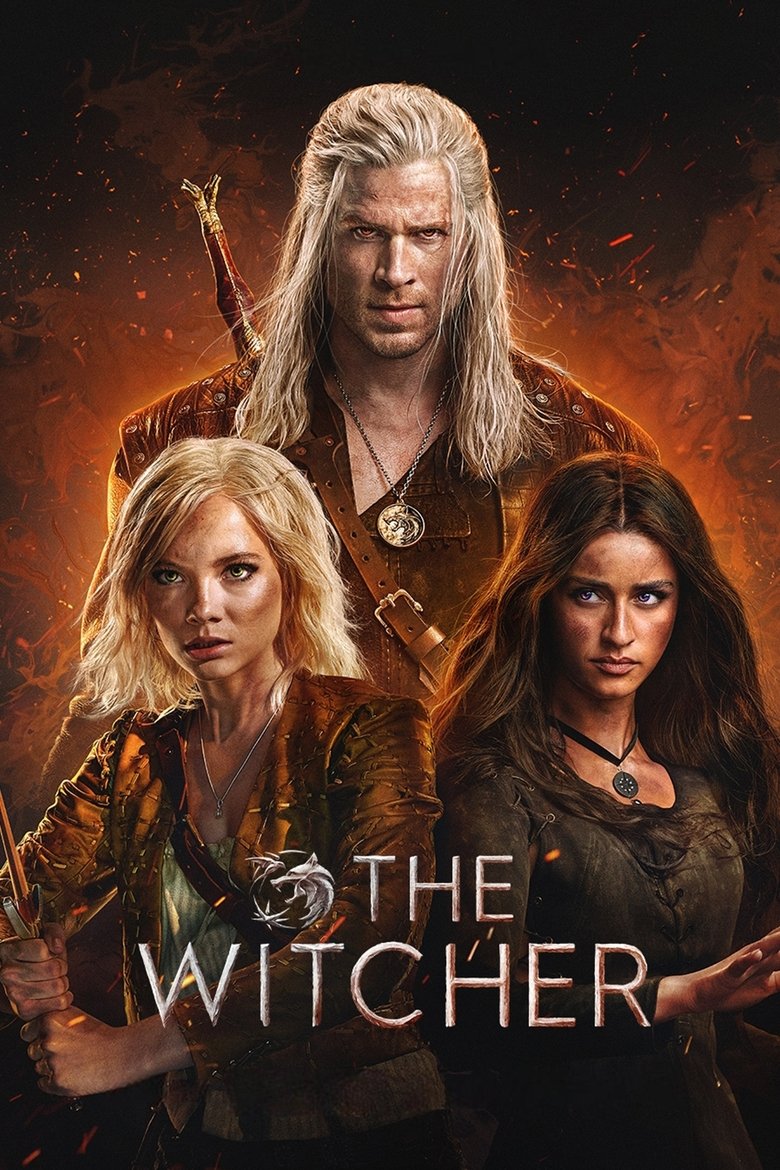
THE WITCHER
About the The Witcher font
The Witcher's title is an engraved, medieval serif. Cinzel — free and inscriptional — brings that same carved, dark-fantasy weight.
What font is used in the The Witcher logo?+
The original The Witcher logo uses custom lettering. This generator recreates the look with Cinzel — a free, open-license font you can style and download.